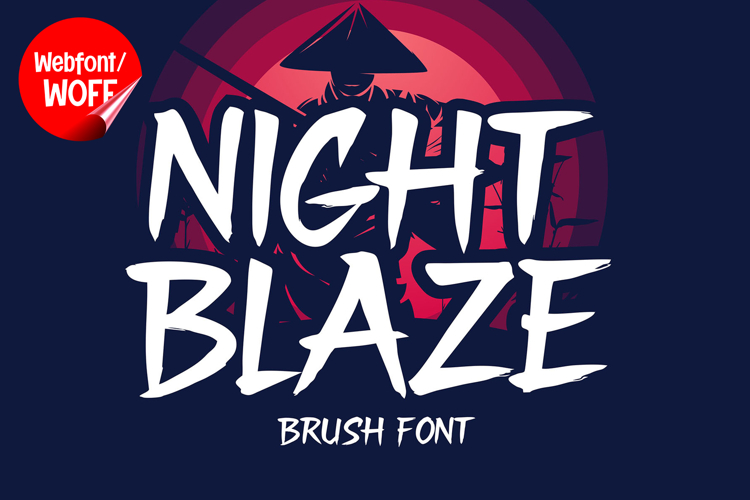
Night Blaze | Japanese Brush Style Webfont for Bold Creative
Night Blaze is a Japanese brush style webfont designed to bring bold artistic energy and modern cultural aesthetics into website design. Inspired by traditional Japanese brush lettering, calligraphy strokes, and contemporary urban typography, this font features expressive brush textures and dynamic movement that create a strong and visually striking identity. It is an excellent choice for projects that aim to combine authentic brush-style aesthetics with modern digital creativity.
Night Blaze includes a complete set of uppercase characters designed with Japanese brush-style aesthetics. The letterforms feature bold strokes, natural texture variations, and fluid movement that create an authentic hand-painted appearance inspired by traditional ink brush techniques. These characteristics make it ideal for headlines, banners, hero sections, branding layouts, and featured content where dramatic visual impact is needed.
In addition to letters, the font includes numbers and punctuation, allowing flexible usage across various parts of a website. It works well for gaming websites, anime-inspired branding, restaurant promotions, music projects, fashion campaigns, and creative portfolios. Each character maintains a consistent brush-style appearance, ensuring a cohesive and unified visual identity throughout the design.
With multilingual support, Night Blaze includes a wide range of accented characters, making it suitable for international websites and global audiences. This ensures content remains clear and visually consistent across different languages while preserving the expressive and artistic brush aesthetic.
The Japanese brush style of Night Blaze makes it especially suitable for Asian-inspired branding, cinematic title designs, entertainment projects, martial arts themes, and urban creative campaigns. Its textured strokes and dramatic movement create a bold atmosphere that helps websites stand out in visually competitive environments. The brush-inspired forms add emotion, movement, and artistic character while maintaining a modern display style.
Despite its expressive and decorative appearance, Night Blaze is designed with readability in mind. The spacing and proportions are carefully balanced to ensure clarity, particularly in display sizes. This allows designers to use the font effectively for impactful headings and short content without sacrificing usability.
Night Blaze is a webfont that combines Japanese brush aesthetics with modern digital performance. Its textured strokes, expressive movement, and artistic character create a distinctive typographic presence that enhances website design. For projects that require a bold, cultural, and visually engaging brush font, Night Blaze offers a versatile and powerful solution.